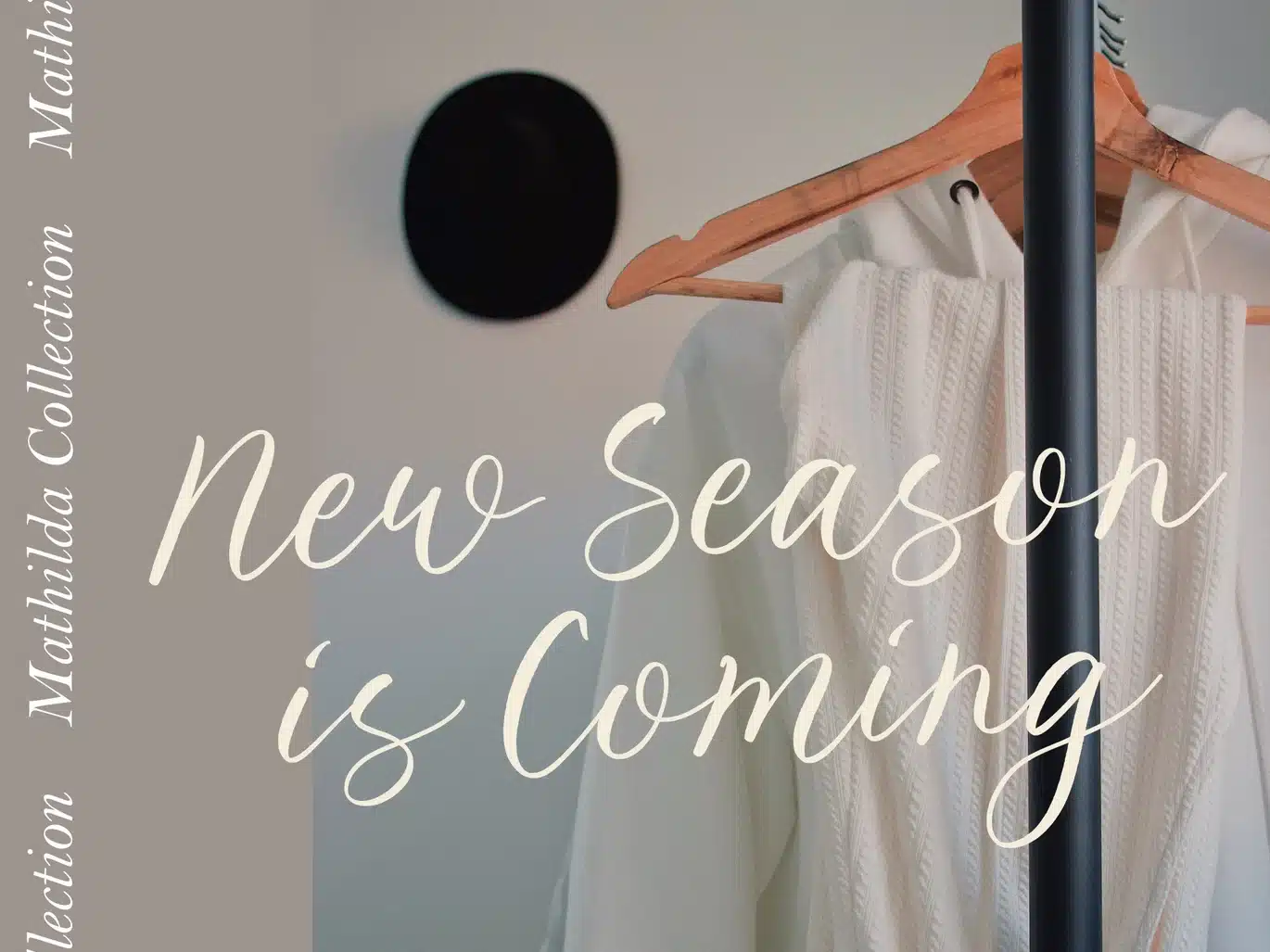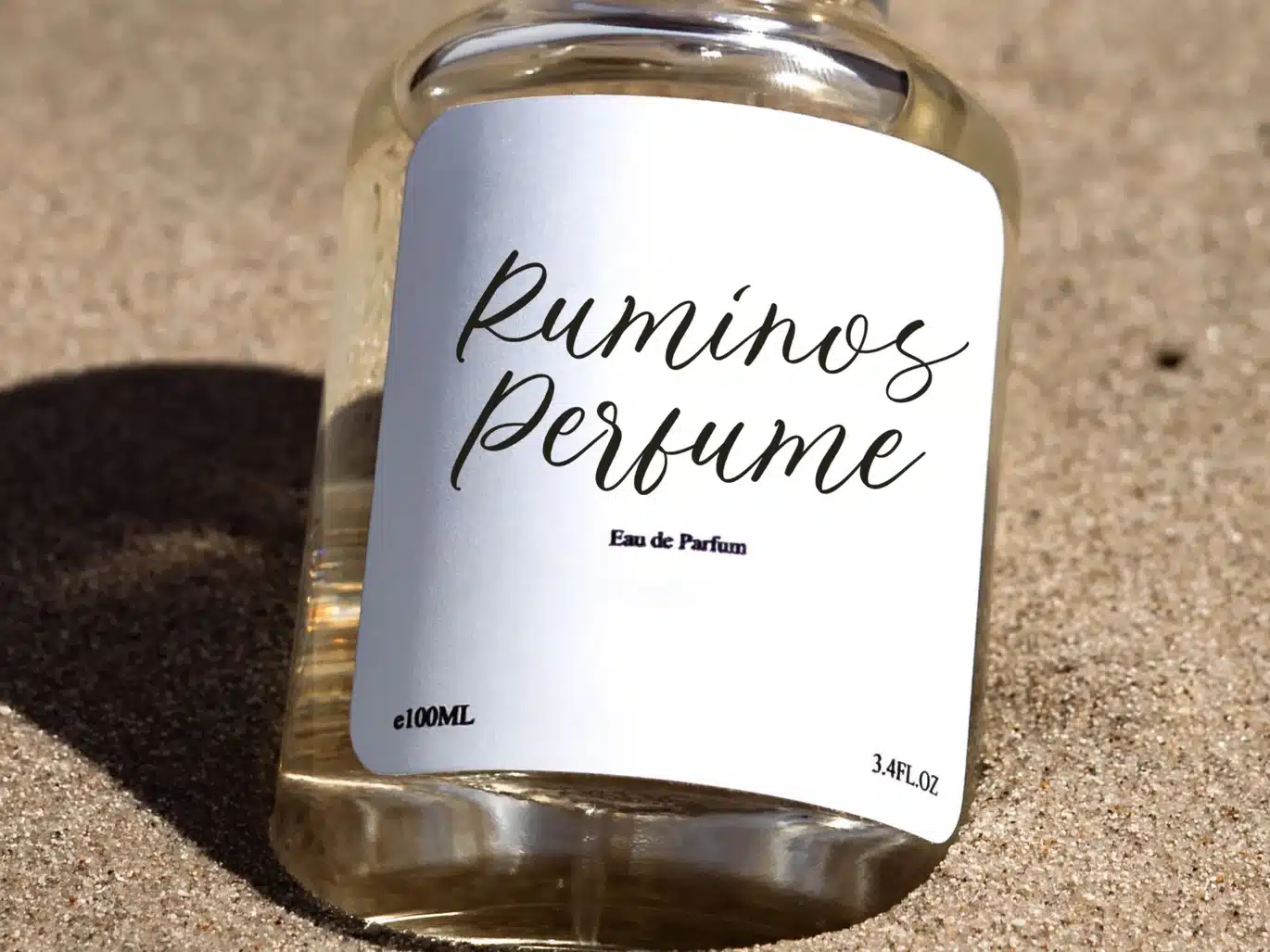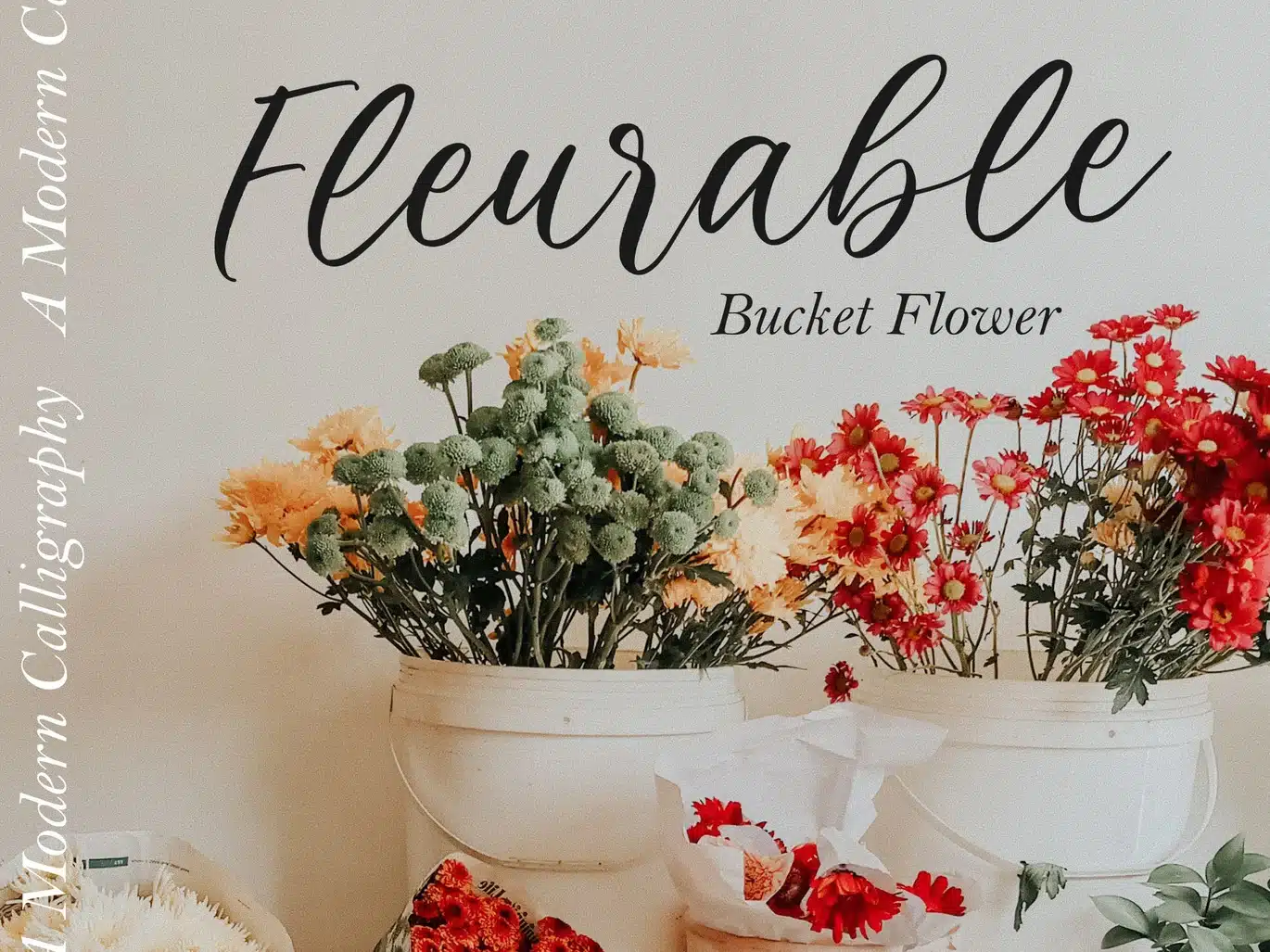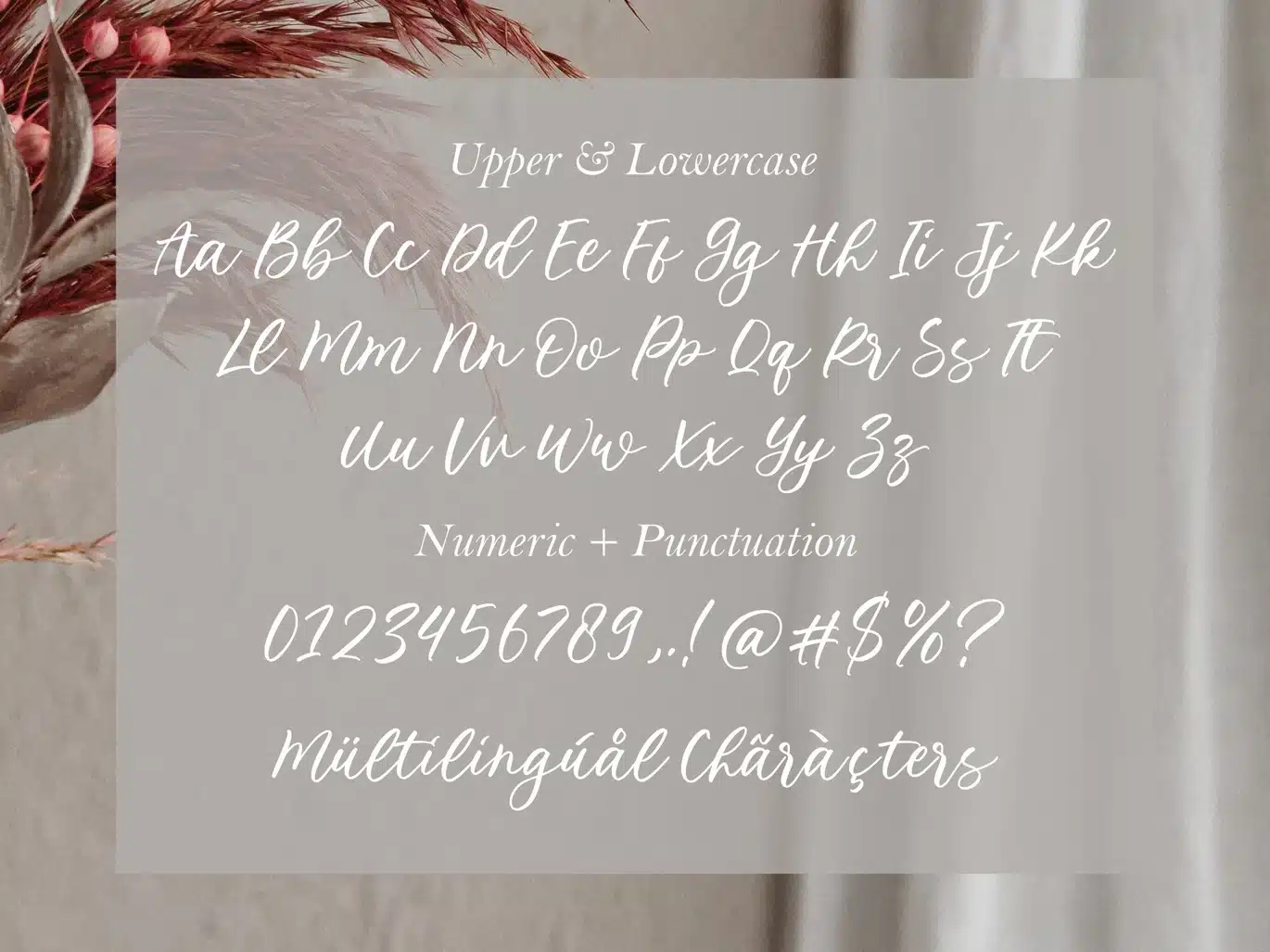
Royale Kingdom – Modern Calligraphy Logo Font
Royale Kingdom is a Modern Calligraphy Font that's perfect for adding a touch to your design projects! With its natural, organic feel and unique character.
Crafted with care and attention to detail, this font is incredibly versatile and can be used for a range of design projects, including logos, branding, invitations, and more. Its modern, handwritten style gives it a unique character that's sure to make an impact.